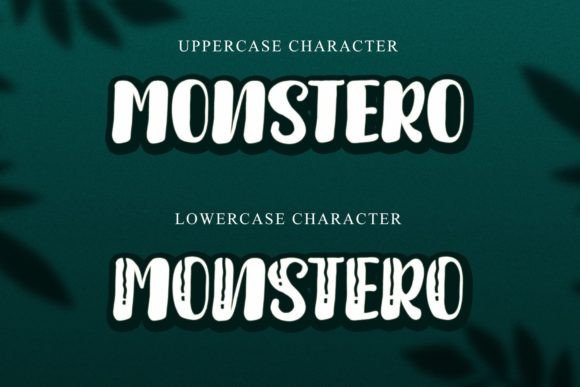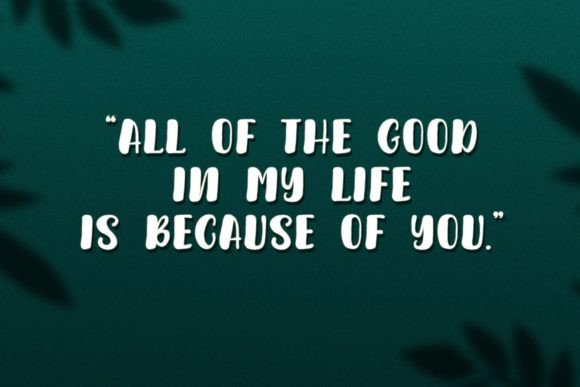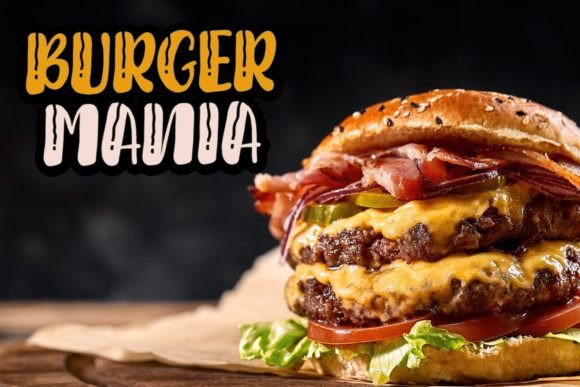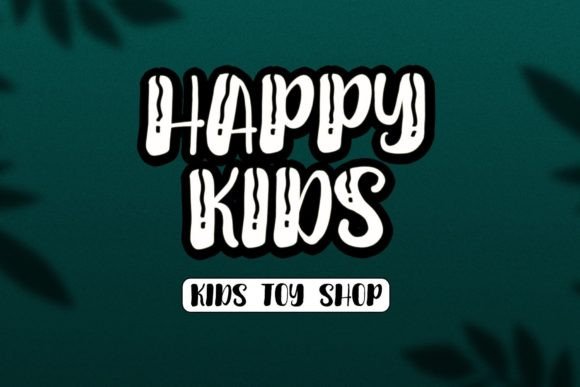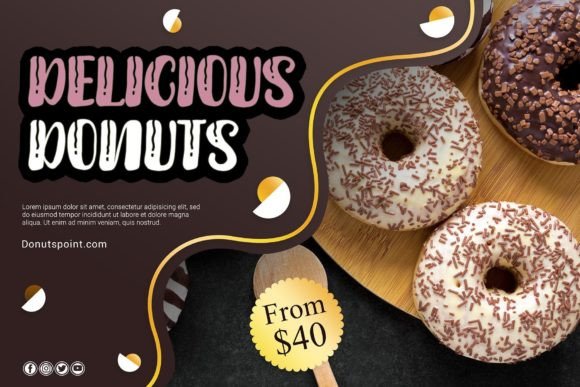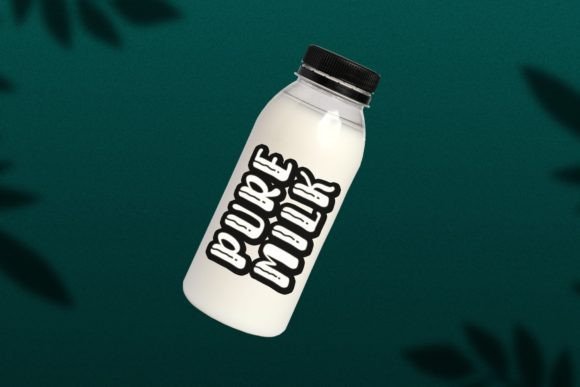
Introduction to Monstero Font
Monstero is bold and expressive.
Its thick and solid lines make it easy to read and its conservative bends arenโt overwhelming to the eyes A balanced fusion of playful and professional, there are a ton of design projects this font will be perfect for.